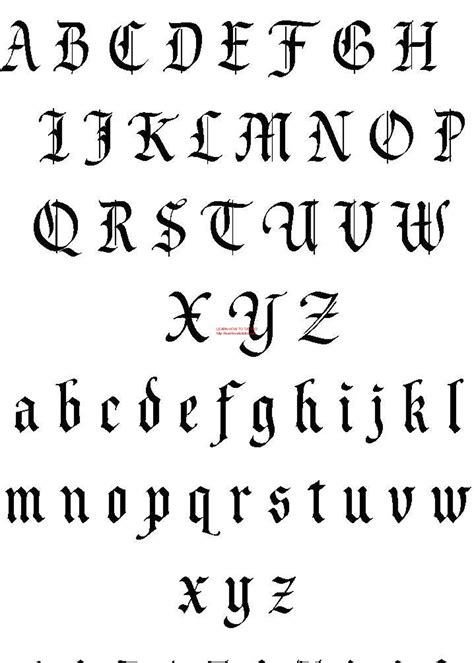
Tattoo Lettering Fonts A-Z, You can also download the font your used! Chicano includes uppercase and lowercase letters, numerals, a large range of punctuation and ligatures.
Download the a to z font by dieter schumacher. Script font for lengthy tattoos. For this man, the script with a few stylish lettering is the right choice.
Fortunately, we have many unique tattoo font styles for men and women, such as calligraphy, cursive, and traditional styles. Our online font generator will show your chicano font choice in a larger size, and you can take a. Chino tattoo is a typical tattoostyle font. Do not miss our most special fonts for your tattoos, drawings, prints, murals. This font.
Chicano tattoo hip hop handwritten graffiti calligraphy urban script latino handwriting font brush vector tagging tag swash street sign rough rap paint old modern lettering letter. All lowercase letters include ending swashes and alternative font. Pick the colour of your text from the colour list then hit the generate button! Our online font generator will show your chicano font choice.
Great for beverage labels, logos, and anywhere you want a victorian feel to your design project. See more ideas about tattoos, tattoo lettering, initial tattoo. Chino tattoo is a typical tattoostyle font. You can also save and print any of these ready made tattoo letters below. This font is the sisterfont of chinotattoo.
This is also one of the artistic tattoo fonts for men. For this tattoo, the long strokes of this font make it easy for anyone to read. Create text graphics with tattoo fonts. See more ideas about tattoo lettering, tattoo lettering fonts. Fortunately, we have many unique tattoo font styles for men and women, such as calligraphy, cursive, and.